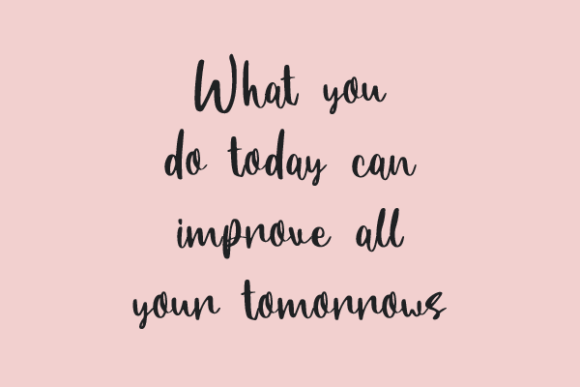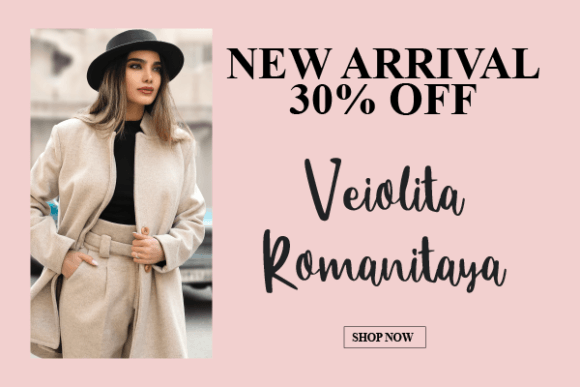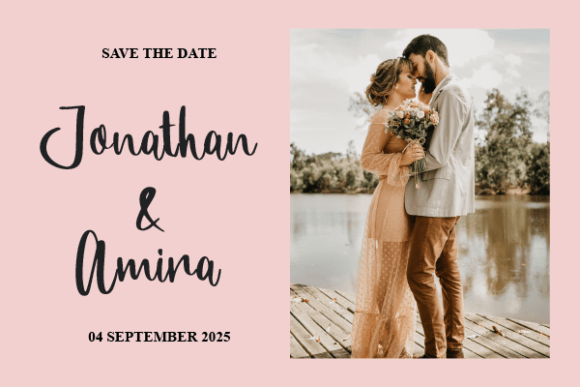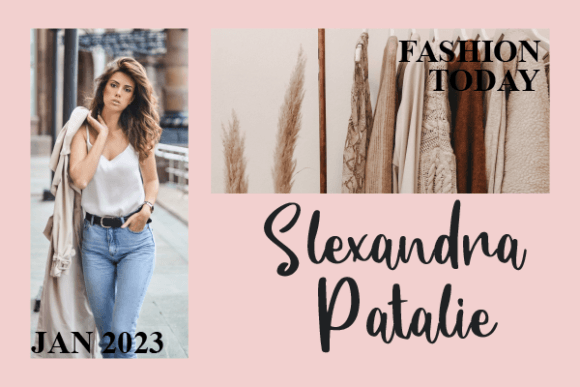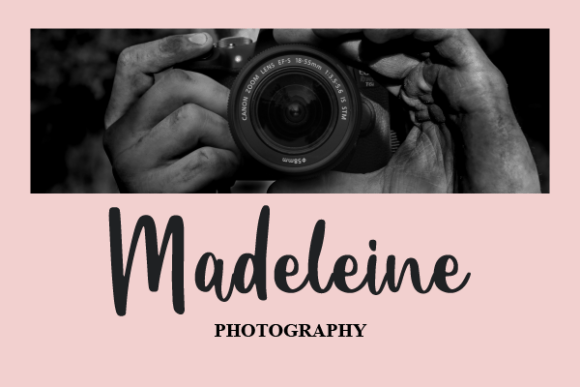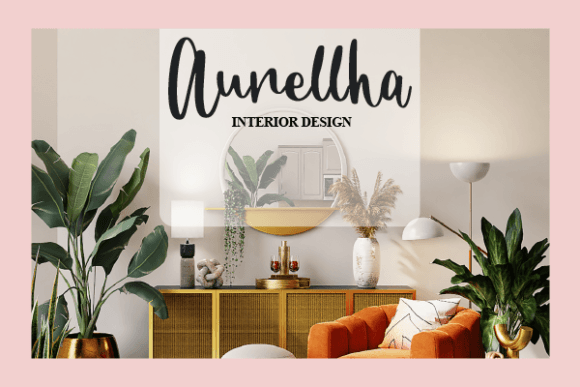
Introduction to Audrey Hanifa Font
Have you ever found yourself in the middle of a creative project, searching for that perfect font to bring your vision to life? The right font can make all the difference, and for designers, it’s a valuable resource that can elevate any design. I’ve been there, and that’s why I’m excited to introduce you to the Audrey Hanifa Font – a charming and stylish handwritten script font that’s sure to become your new favorite.
Whether you’re working on a digital design project, creating a presentation, or making greeting cards, the Audrey Hanifa Font has the potential to add a touch of elegance and sophistication to your work. With its high-quality design and transparent background, this font is a versatile design resource that’s perfect for any creative project.
Key Features of Audrey Hanifa Font
- High-quality design: The Audrey Hanifa Font is a premium font designed for creative projects that demand a high level of sophistication and elegance.
- Unique script style: The Audrey Hanifa Font features a unique script style that adds a touch of elegance and sophistication to any design project.
Honest Review: Audrey Hanifa Font
I recently had the chance to work with the Audrey Hanifa Font, and I must say it’s been a game-changer for my creative projects. As a designer, I’m always on the lookout for high-quality design resources that can elevate my work.
- ✨ The font’s elegant and modern design makes it perfect for fashion, lifestyle, and luxury brand projects.
- ⚠️ The font may not be suitable for projects that require a bold, edgy look, as it’s more on the elegant side.
- ⚠️ Some users may find the font a bit too ornate, which can make it difficult to read at small sizes.
Overall, I’m really impressed with the Audrey Hanifa Font. It’s a fantastic addition to any designer’s toolkit, and I highly recommend it for anyone looking to add some sophistication to their creative projects.